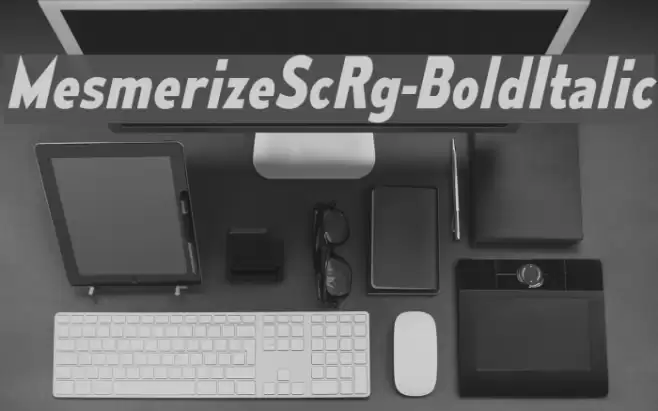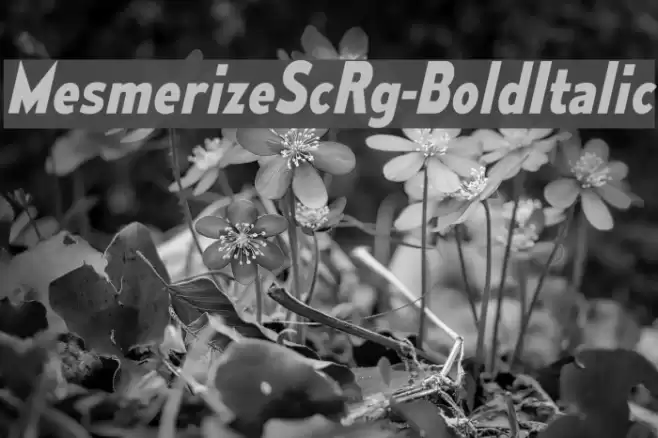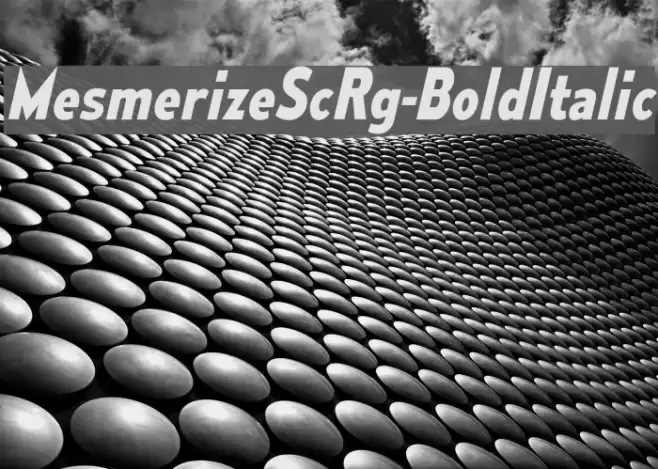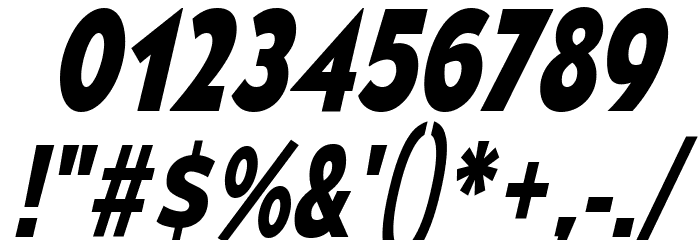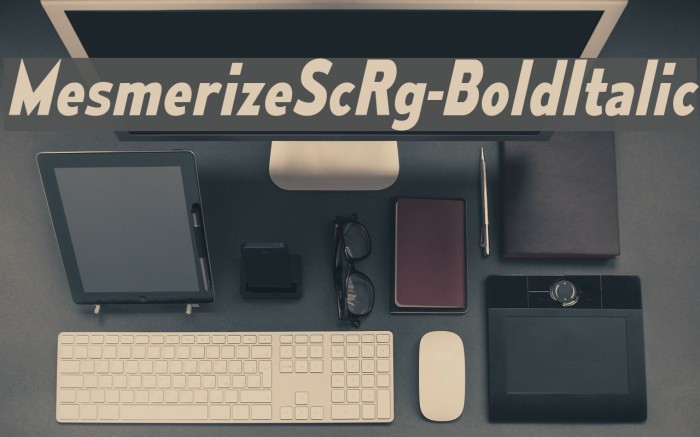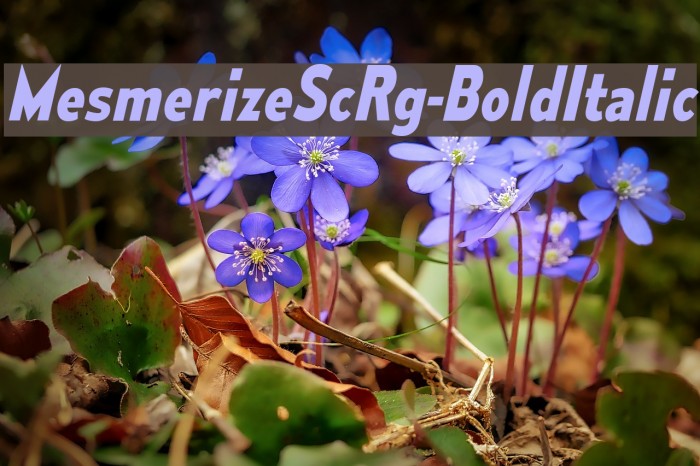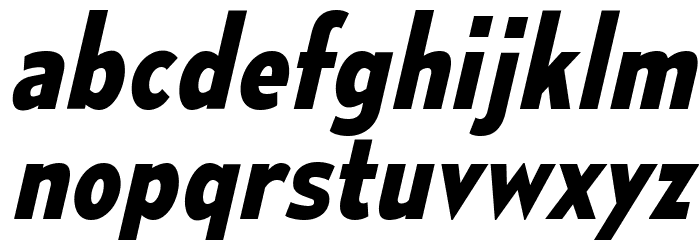
MesmerizeScRg-BoldItalic Font
MesmerizeScRg-BoldItalic Description
This font features a bold and italicized style, characterized by its strong, dynamic presence. The letters are slightly slanted, adding a sense of movement and urgency. The strokes are thick and consistent, providing a robust and confident appearance. The uppercase and lowercase letters maintain a uniform width, ensuring readability and balance. The numerals are clear and bold, matching the overall aesthetic. Special characters are well-defined, complementing the font's assertive style. This font is ideal for making impactful statements, with its boldness and italicization enhancing its visual appeal.
A bold, italicized font with strong, dynamic strokes and a confident presence from Uncategorized fonts.
- Proposed Projects: Ideal for headlines, advertising, branding, and any project requiring a bold statement.
- Use Case: Headlines, Logos, Advertising